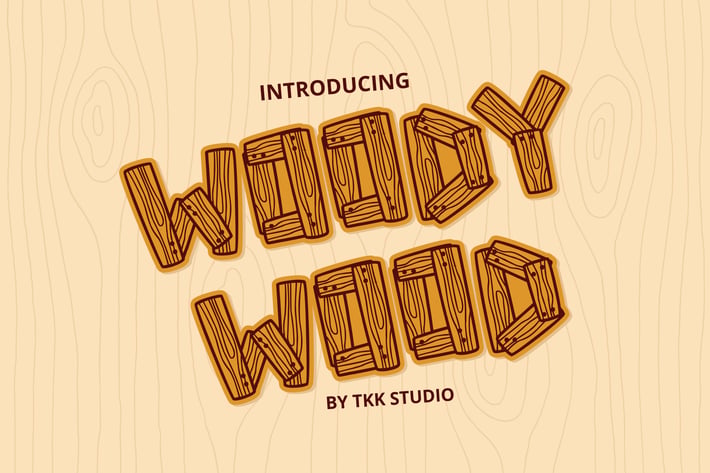
Woody Wood - Kids font
Woody Wood
Woody Wood is a rugged nature display typeface built for bold storytelling. Designed with long-tail visual appeal, this textured letterform mimics carved bark and woodgrain, ideal for brands needing a rustic, outdoor, or adventurous voice. Its slab-like structure, angular cuts, and organic unevenness evoke survival instincts and tactile storytelling. With a handcrafted vibe and expressive proportions, it suits any context that needs to feel wild, grounded, and primal—from jungle-themed editorials to eco-conscious packaging.
Woody Wood is ideal for adventure-driven branding, outdoor gear logos, survival YouTube thumbnails, or anything that speaks to wild exploration. Whether you're designing a jungle-themed kids book, an indie wildlife app, or merchandise for a forest adventure show, this font instantly creates an earthy, immersive atmosphere. It’s expressive enough for cinematic posters yet grounded enough for branding that wants to feel raw and connected to nature.
Key Features
Crafted to Stand Tall Like Trees:
- Inspired by bark textures, timber patterns, and forest geometry
- Unique line detailing for a tactile, wood-carved appearance
- Balanced spacing for strong visibility in bold headlines
Where It Fits Perfectly:
- Nature branding, eco-product packaging, adventure thumbnails
- Educational print material, forest-themed gaming, camping gear labels
- Ideal for wildlife events, jungle signage, and rustic merchandise
- Basic latin A-Z and a-z
- Numbers
- PUA Encoded Characters